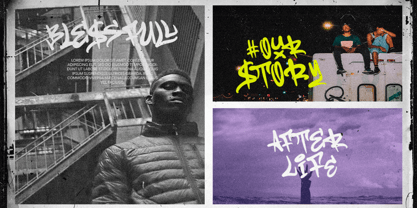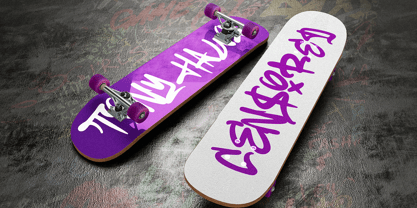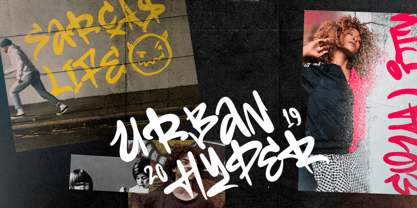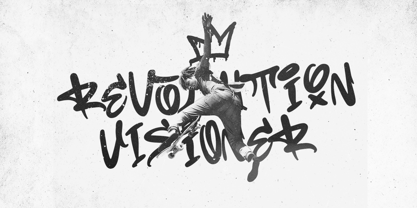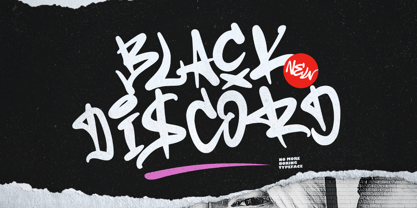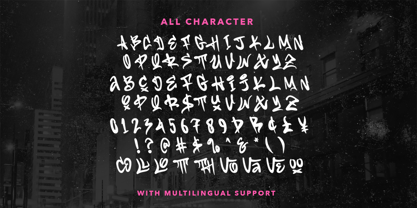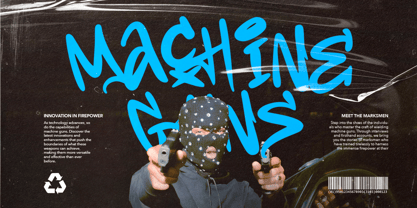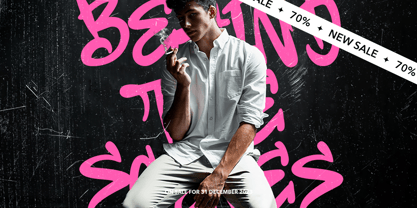
Black Discord
The Black Discord Font Family was designed by Sarid Ezra, Dzikrul Aulia and published by Bale Type. Black Discord contains 1 styles.
Black Discord is a graffiti font that capture the spirit of street art and bring a dynamic and expressive flair to typography. This font is suitable for designs that seeking to evoke an edgy, urban vibe or to make a bold statement. With ligatures, this font will make your project more handmade and stunning. This font also support multi language.